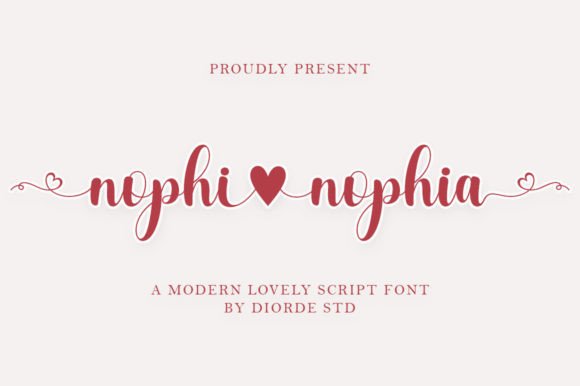
Unleash the allure of Nophi Nophia, a captivating script font that dances across your designs with heartfelt elegance. Its enchanting heart-shaped strokes evoke a symphony of emotions, making it the perfect choice for creating enchanting wedding invitations, stationery art that speaks to the soul, and social media posts that radiate charm. Nophi Nophia's delicate curves and stunning details bring a touch of sophistication to any project, making it the perfect companion for your creative journey.
Let your imagination flourish as you explore the endless possibilities of Nophi Nophia. Craft heartfelt wedding invitations that capture the essence of love and commitment, or create stationery art that exudes timeless beauty. Its versatility shines in eye-catching social media posts, adding a touch of allure to your digital presence. With Nophi Nophia, your designs will leave an unforgettable impression, captivating hearts and sparking conversations.
Immerse yourself in the exquisite beauty of Nophi Nophia, a font that captivates with its unique charm. Its PUA coding grants you effortless access to a treasure trove of glyphs and swashes, empowering you to unleash your creativity without limits. Discover the magic of Nophi Nophia today and elevate your designs to new heights of artistry.